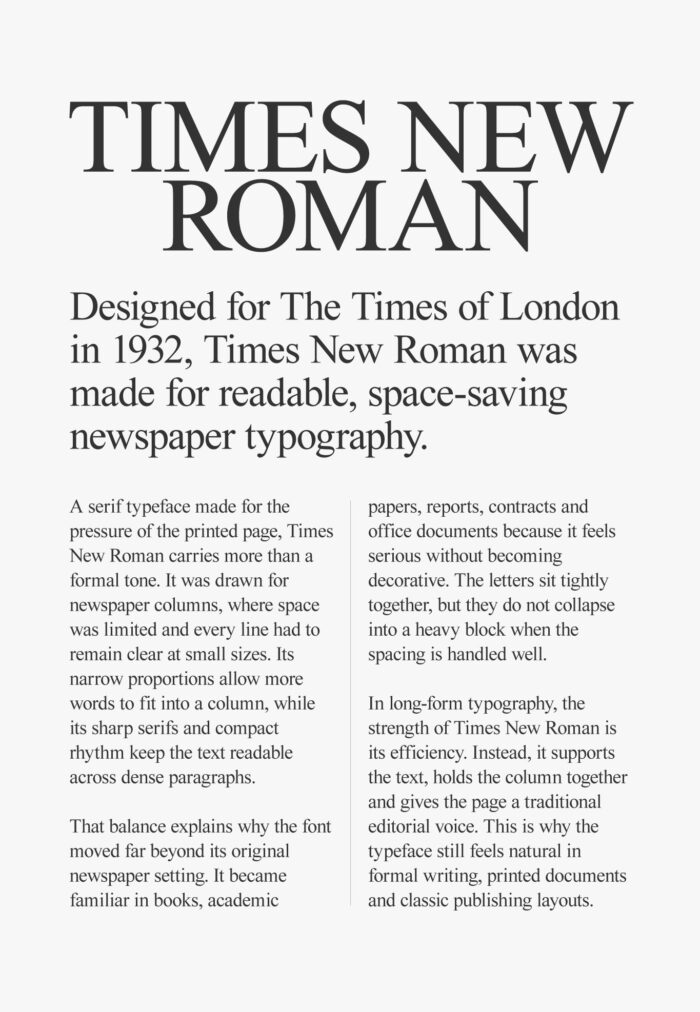
The Times of London commissioned the typeface for its newspaper, and it first appeared in print in 1932. Victor Lardent drew the original letters under Stanley Morison’s direction, while Monotype’s Type Drawing Office developed the final production design.
The design had a practical job. It needed to stay readable in narrow newspaper columns while saving space on the printed page. That compact structure later helped it spread into books, reports, academic papers and office documents.
Why it became so common?
The font became famous because it solved a real newspaper problem. The Times needed more words per line, but the text still had to remain clear at small sizes.
Morison used Plantin as an important reference. Then he pushed the design toward sharper details, tighter spacing and stronger economy. The result looked formal, but it also worked hard in dense columns.
After its newspaper debut, the family moved into commercial printing, books, magazines, office software and academic writing. Microsoft Word later turned it into the familiar voice of formal documents for decades.
Times Roman vs New Roman
The two names refer to closely related versions of the same historical design. Monotype used the longer name, while Linotype used Times Roman for its version.
In everyday use, people often treat the names as interchangeable. However, the naming difference can still matter in font menus, PDFs and older documents. The exact file may depend on the operating system or software environment.